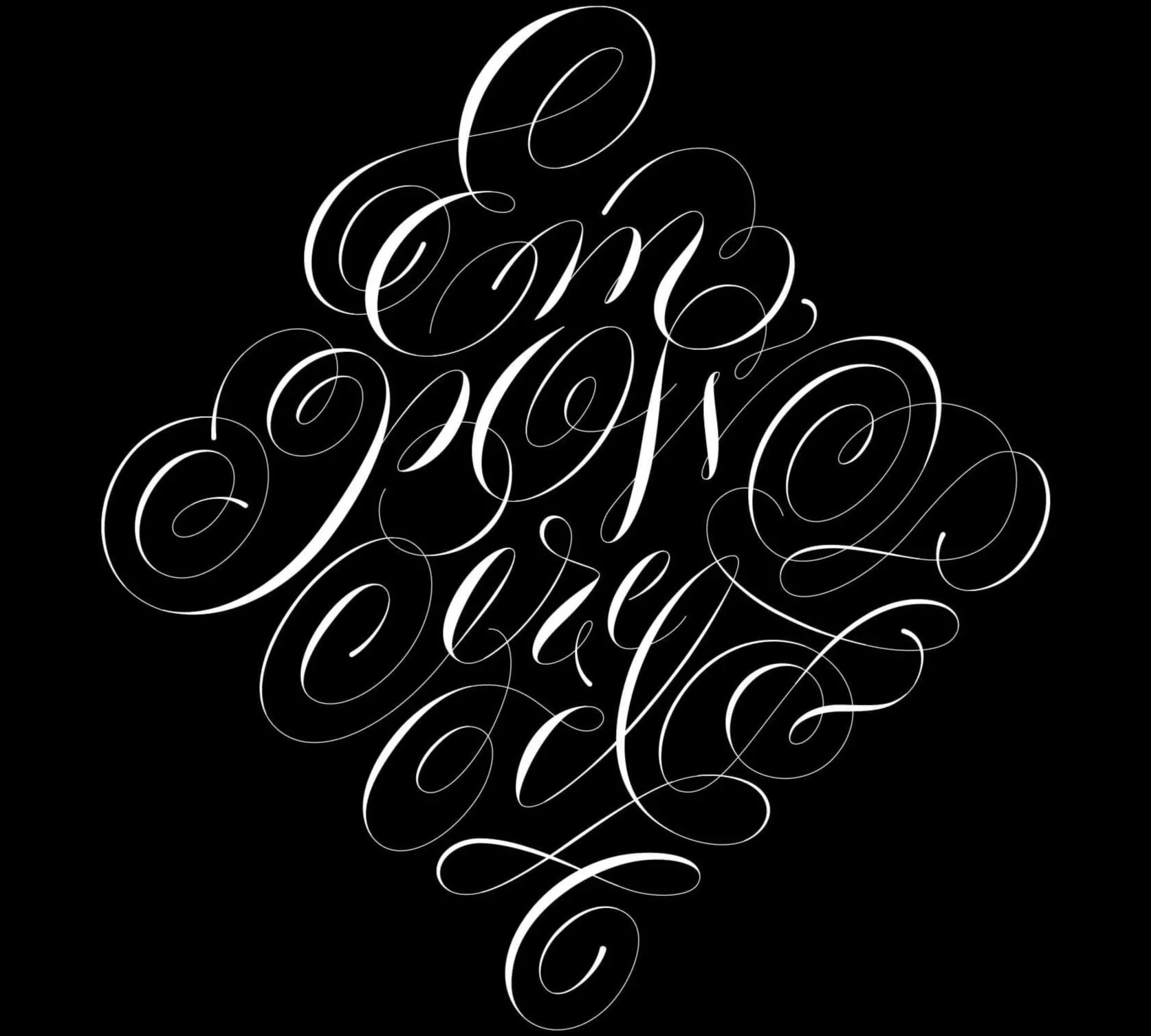
Empowered Campaign
An advertising campaign was launched to promote a premier collection of leotards by Russian Pointe brand — Empowered. We were inspired by the elegance of ballerinas. The refinement of their movements pushed us to create these posters where the lettering gently intertwines with the dancers, reflecting the beauty of the body shape and grace of the dancer.
Lettering
Olga Kovalenko, aka Letterka